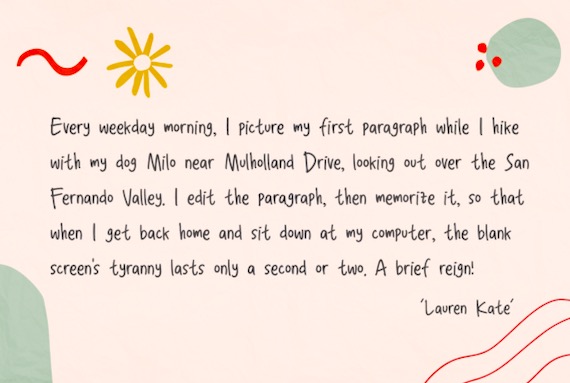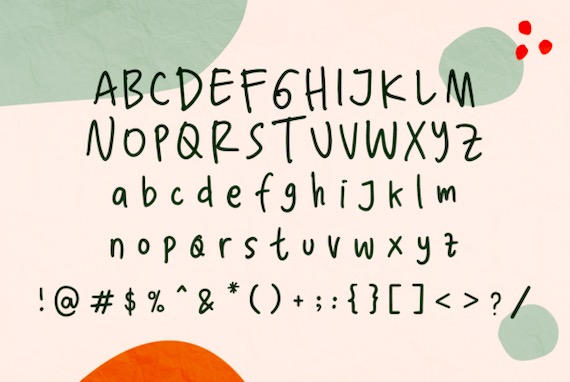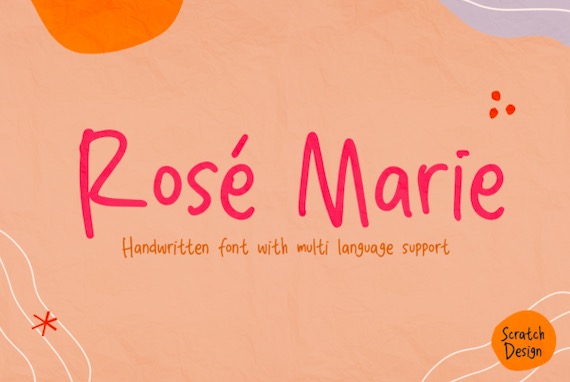
Rose Marie Font is an elegant modern beautiful handwritten script typeface for every contemporary design with multi-languages. This font has a cute modern style that is perfect for your branding design, and will also be very beautiful in your wedding invitations, diary quotes, youtube text, movie titles, Instagram, and business cards. Rose Marie should make your designs instantly look beautiful, original, and amazingly! This font also supports multi-languages, So enjoy this font and make some cool stuff!
Rose Marie Handwritten Font